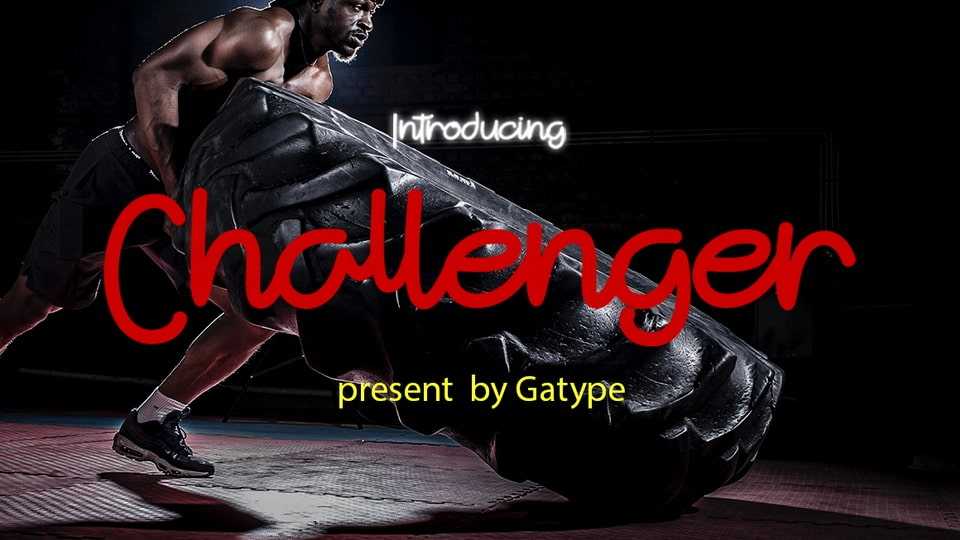
Challenger Font › Fontesk – Fonte Grátis
Download Challenger font, a beautiful handwritten typeface, perfect for logo design, branding, apparel design, signage, posters, wedding invitations and more.